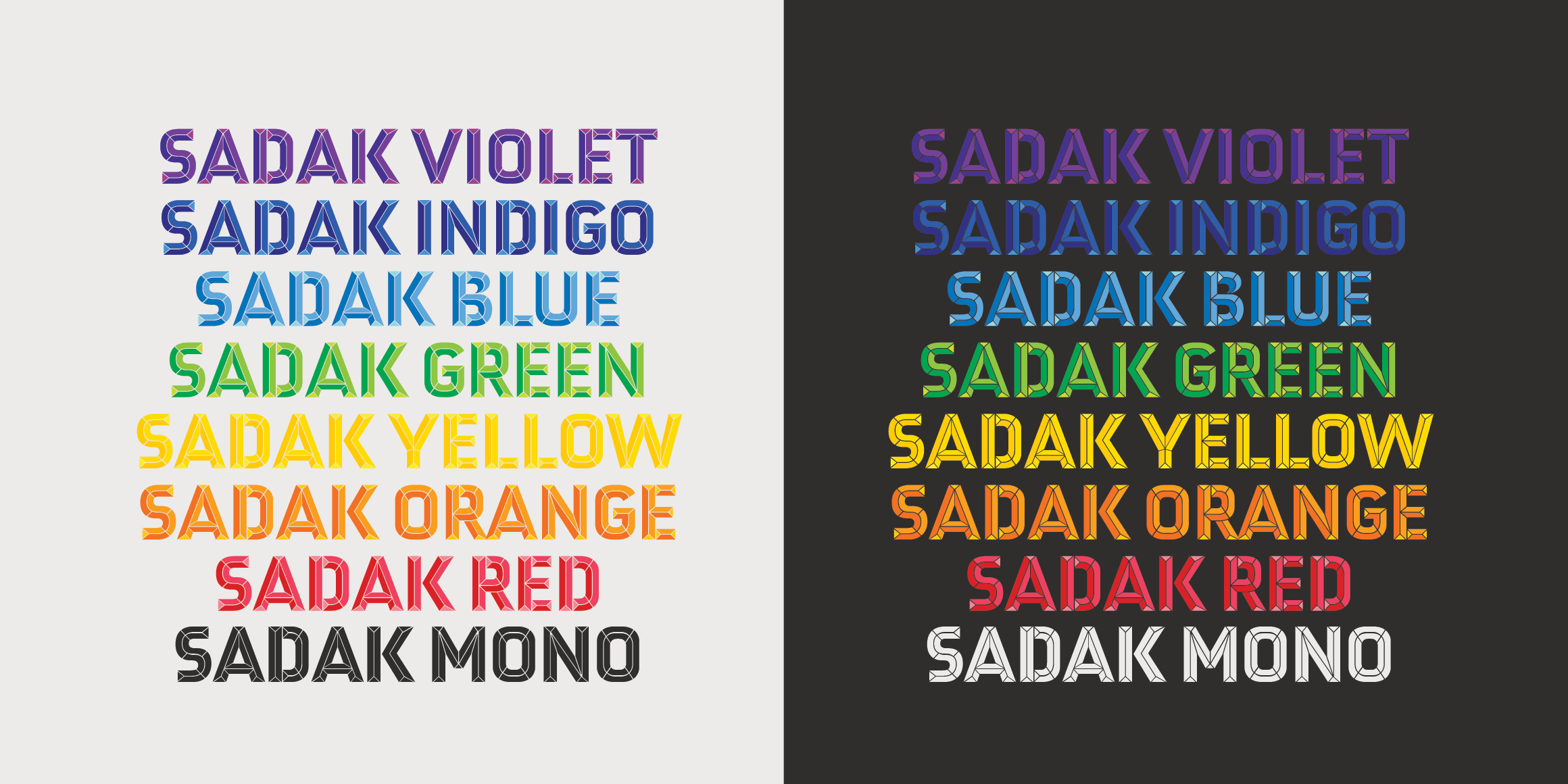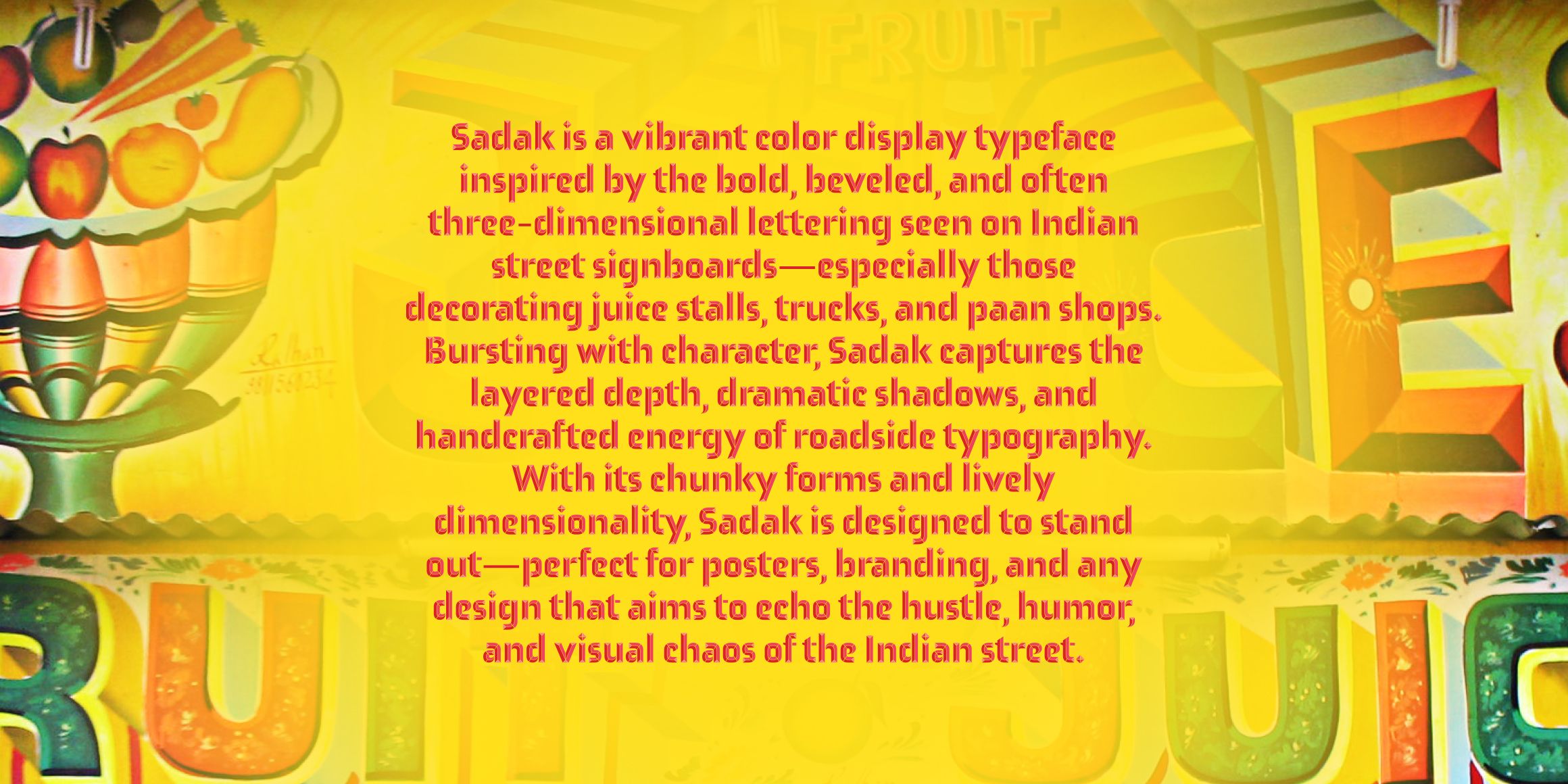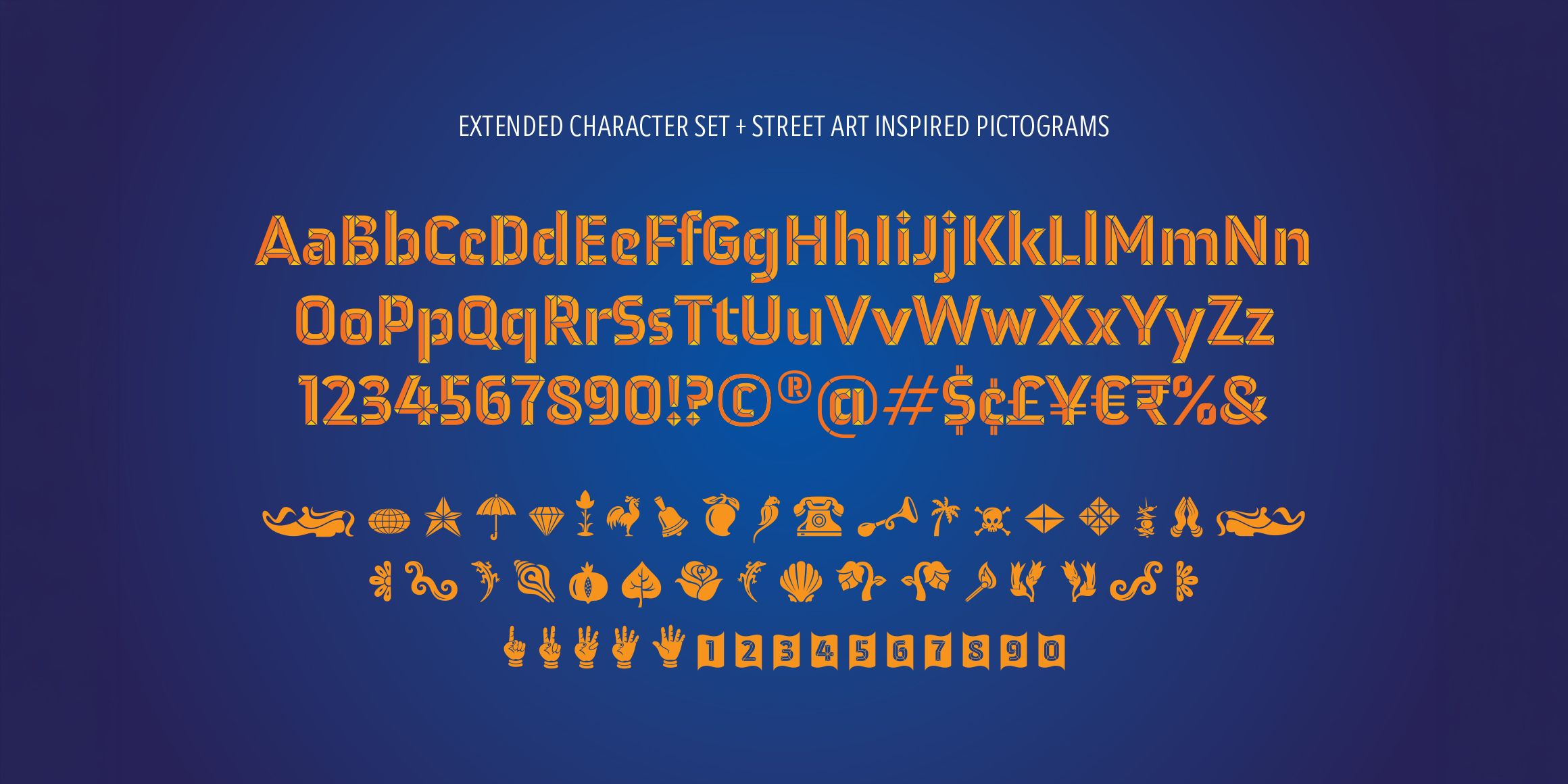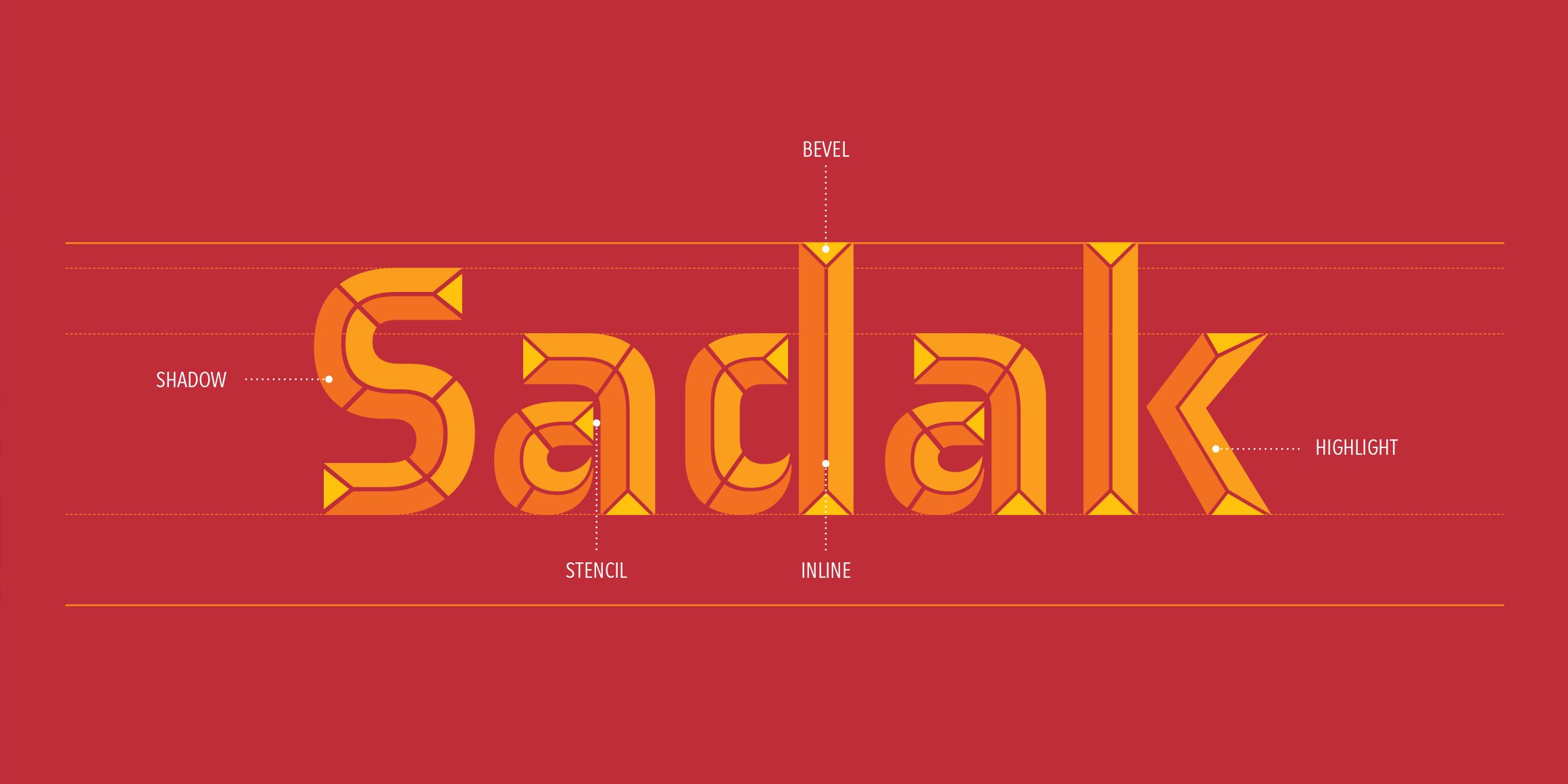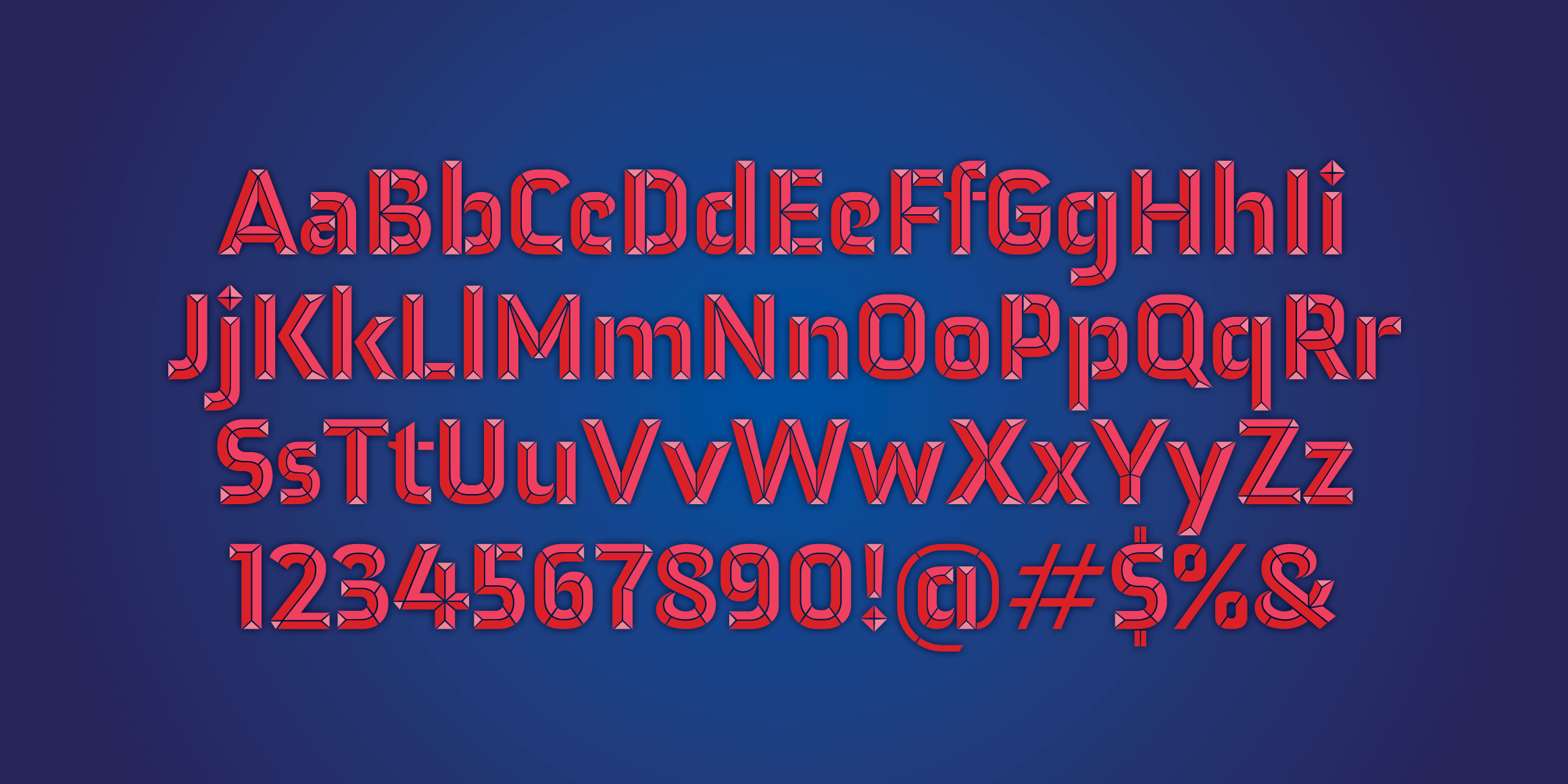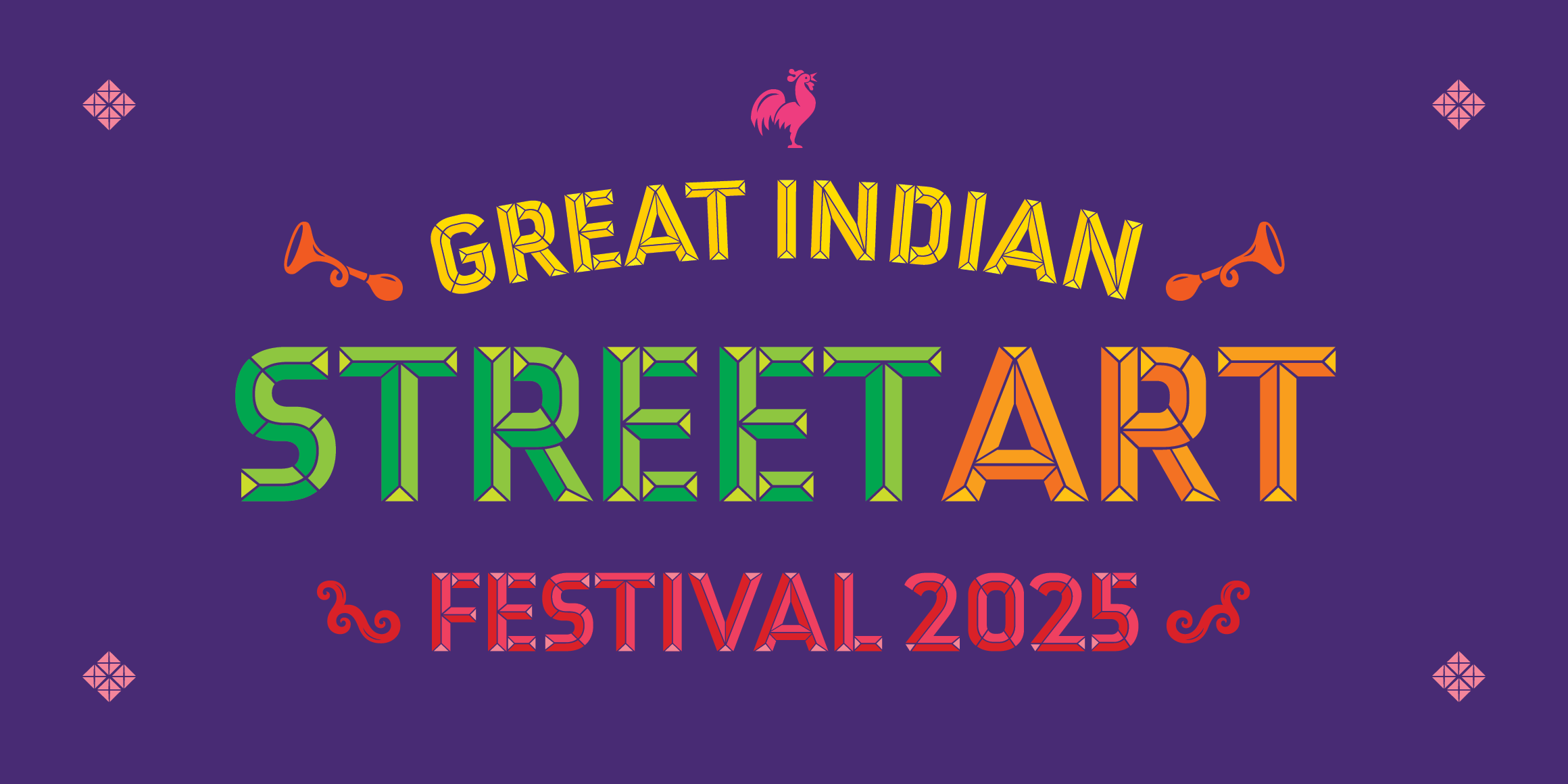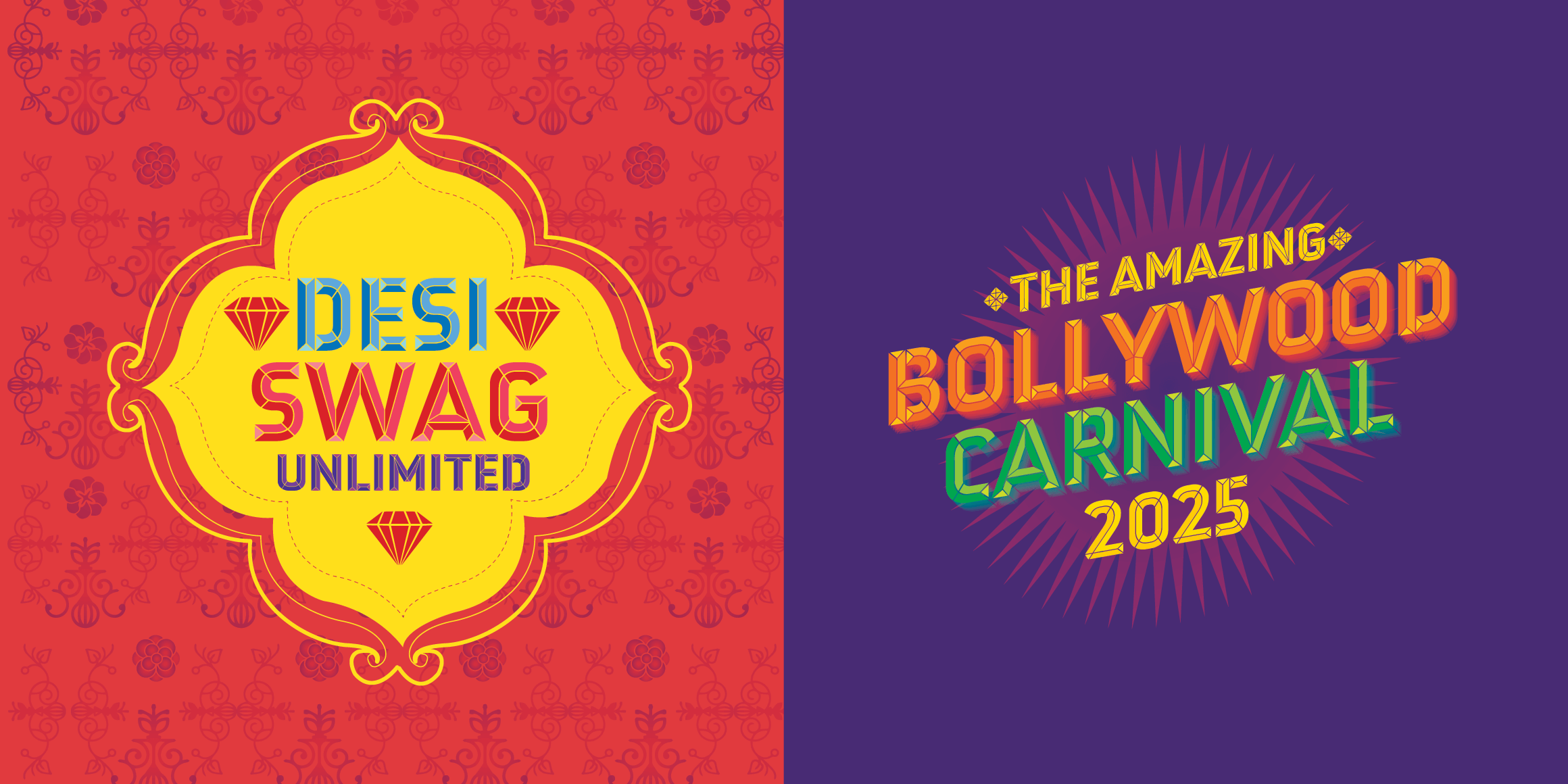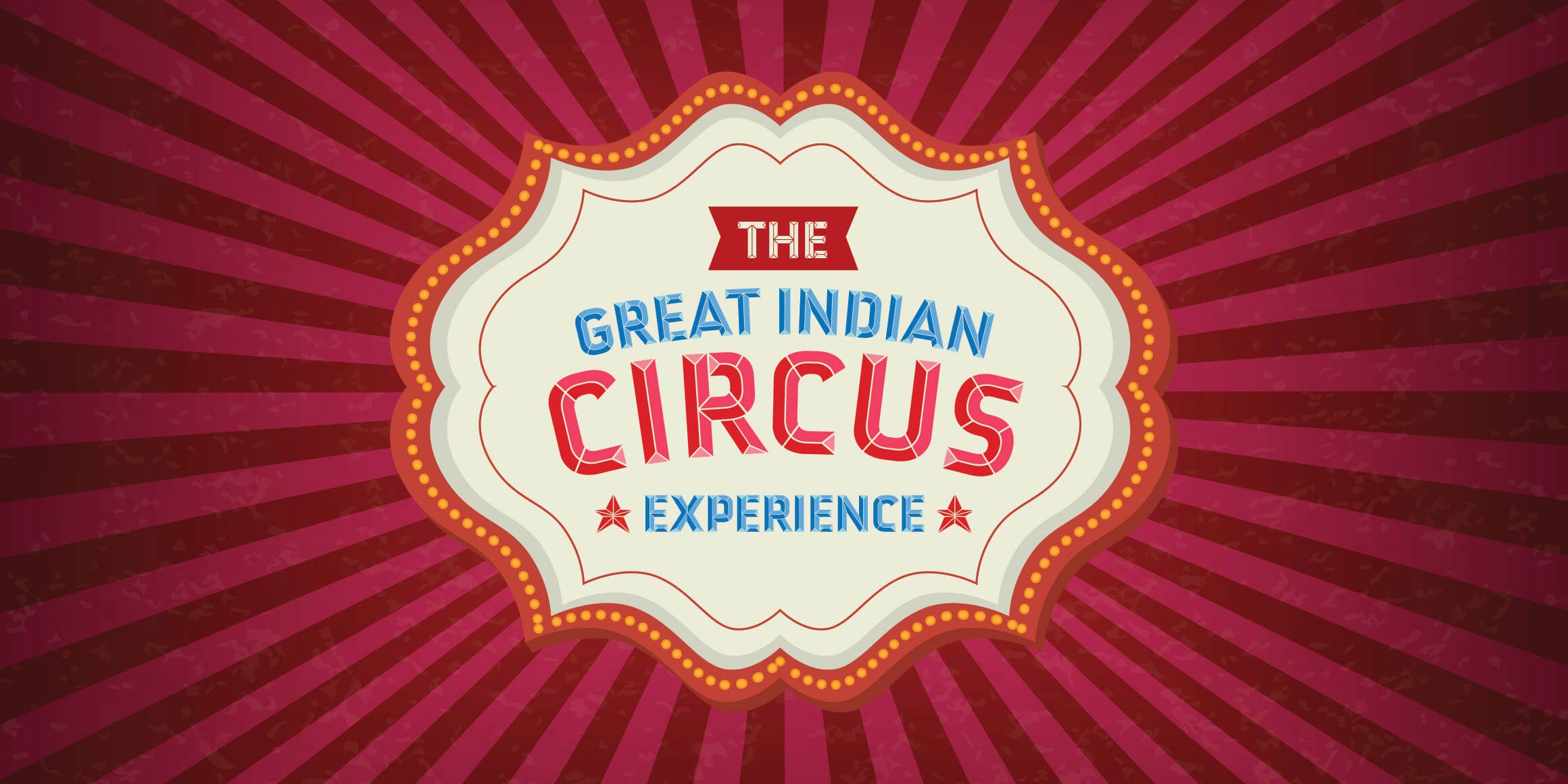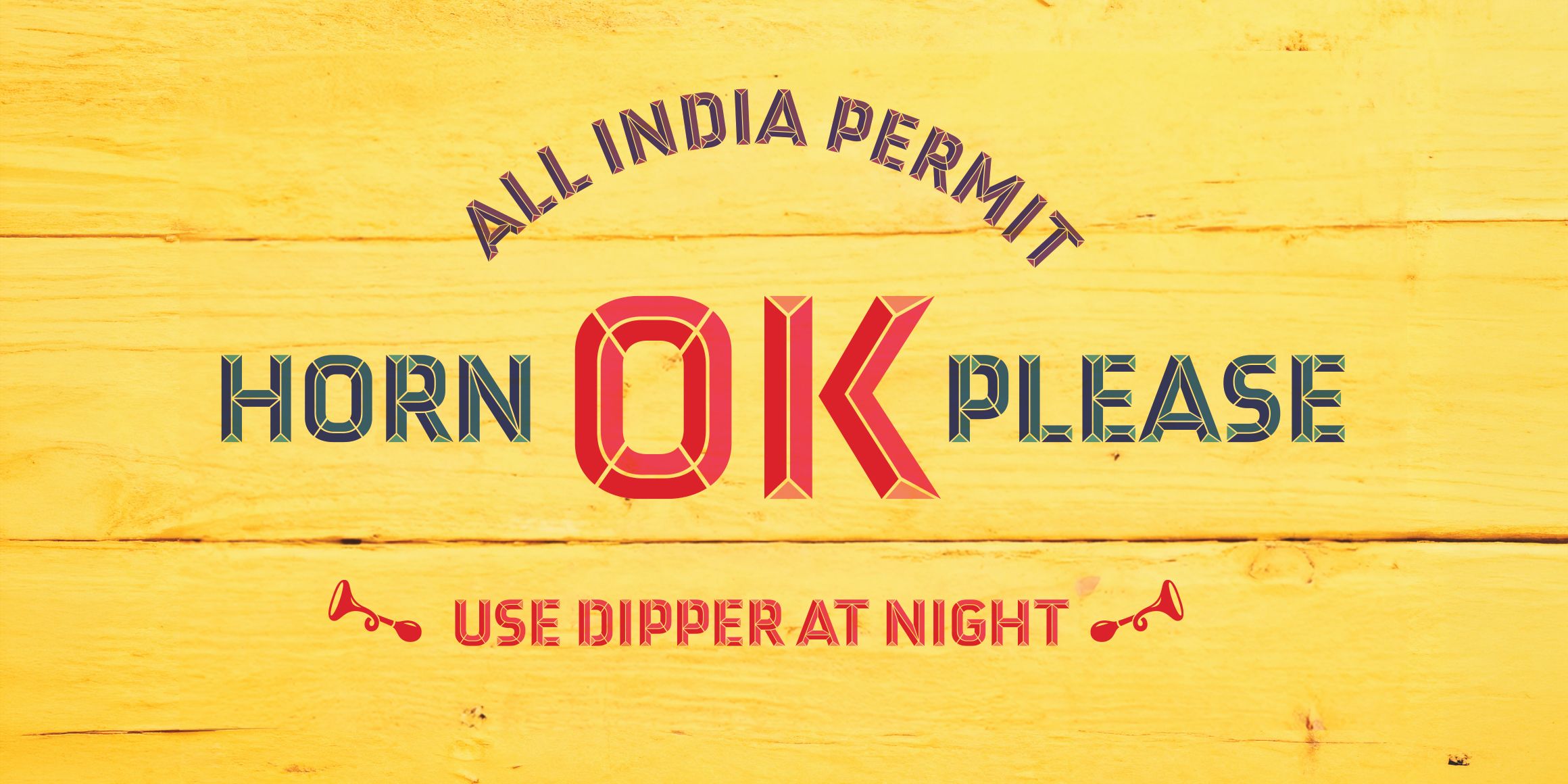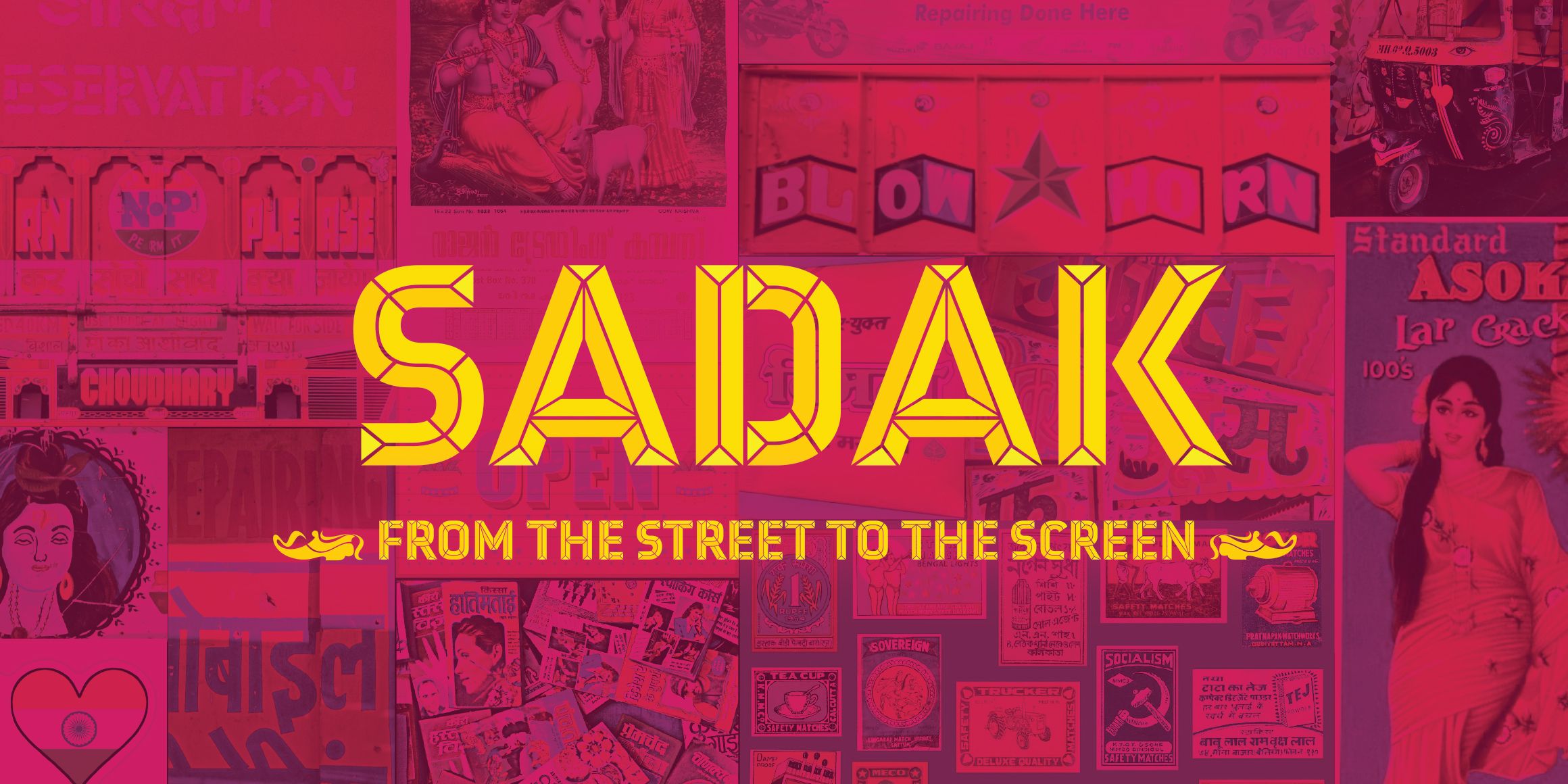
Sadak
Sadak is a vibrant colour display typeface inspired by the bold, bevelled, and often three-dimensional lettering seen on Indian street signboards—especially those decorating juice stalls, trucks, and paan shops. Bursting with character, Sadak captures the layered depth, dramatic shadows, and handcrafted energy of roadside typography. With its chunky forms and lively dimensionality, Sadak is designed to stand out—perfect for posters, branding, and any design that aims to echo the hustle, humor, and visual chaos of the Indian street.